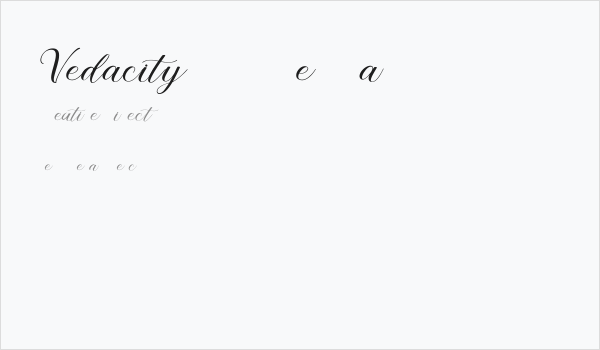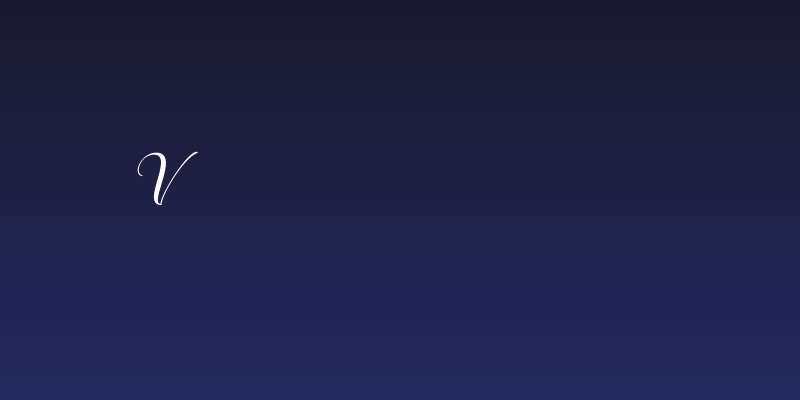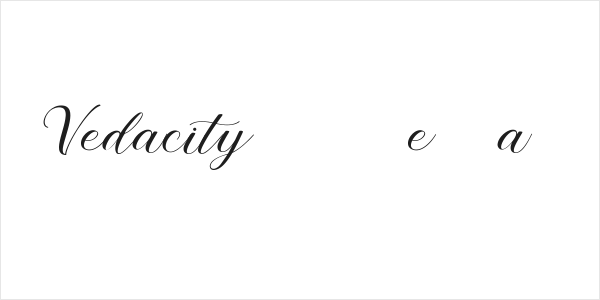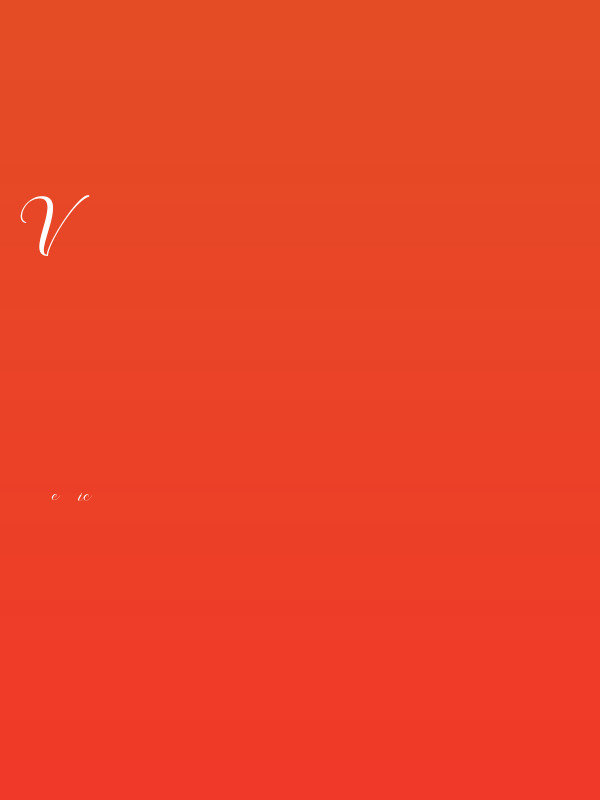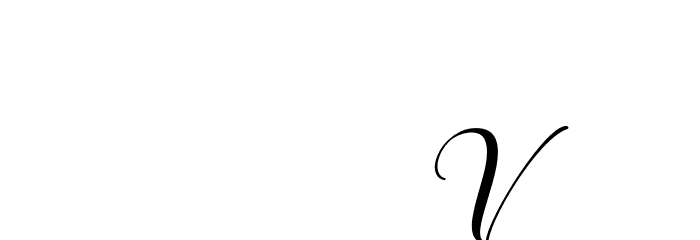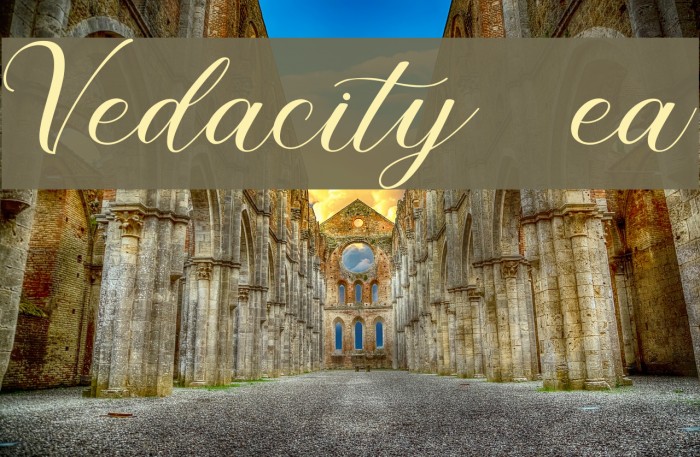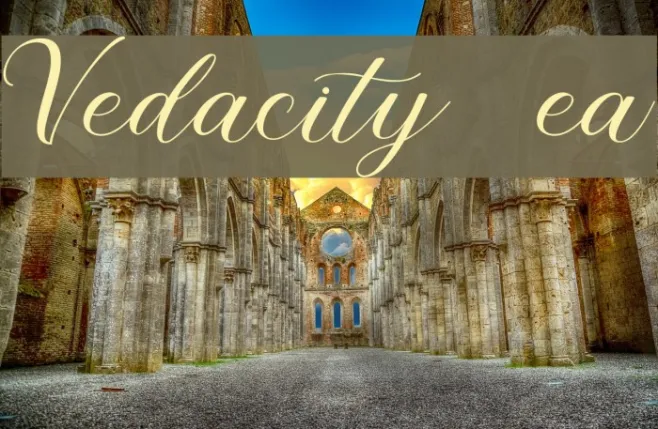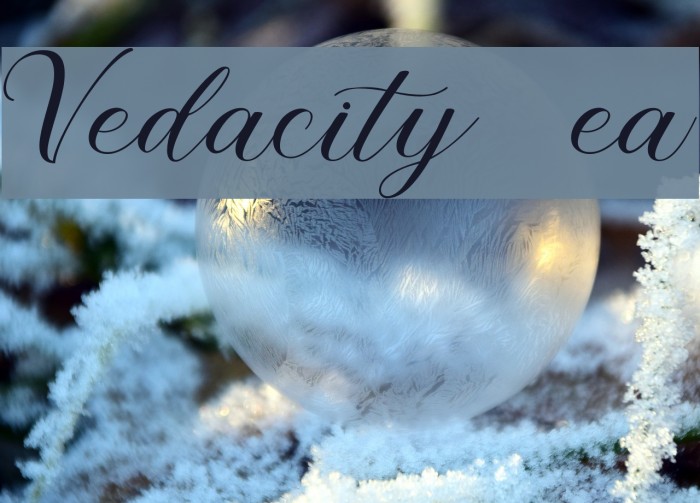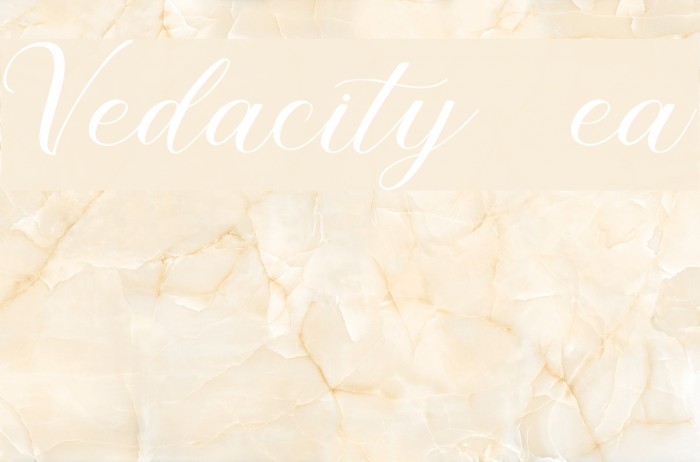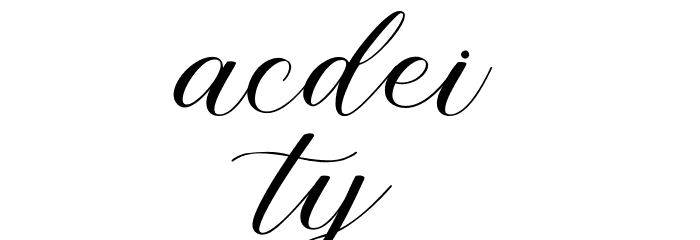
Vedacity DEMO Regular Font
Vedacity DEMO Regular Description
This elegant script font features flowing, cursive letterforms that exude sophistication and grace. The characters are delicately crafted with smooth, sweeping curves and a slight slant, giving the font a dynamic and fluid appearance. The strokes vary in thickness, adding a touch of contrast that enhances readability while maintaining an artistic flair. The font's overall style is reminiscent of classic calligraphy, making it suitable for projects that require a touch of elegance and refinement.